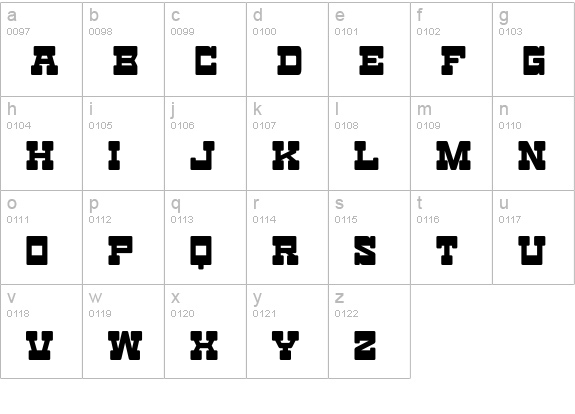
Toy Block Maestro Font Details
Toy Block Maestro is a completely free font in the Fancy > Comic category, designed by Goma Shin. It has been downloaded 158 times and is available for Windows, Mac and Linux.
The Toy Block Maestro font is a playful and whimsical typeface that exudes creativity and charm. Its blocky letterforms are reminiscent of classic children's building blocks, making it perfect for projects aimed at a youthful audience or those looking to add a touch of fun to their designs. This font is versatile and can be used for a variety of purposes, from invitations and greeting cards to posters and packaging.